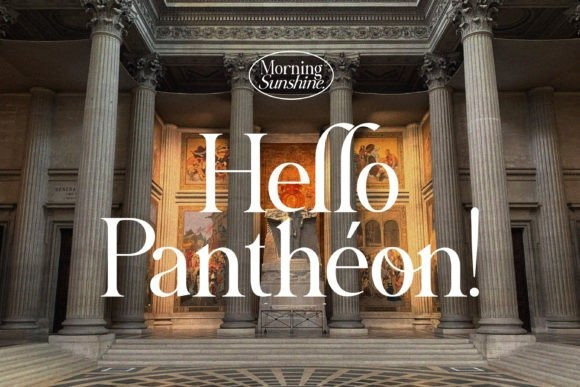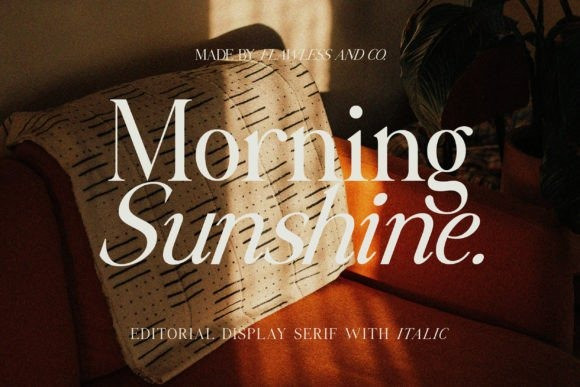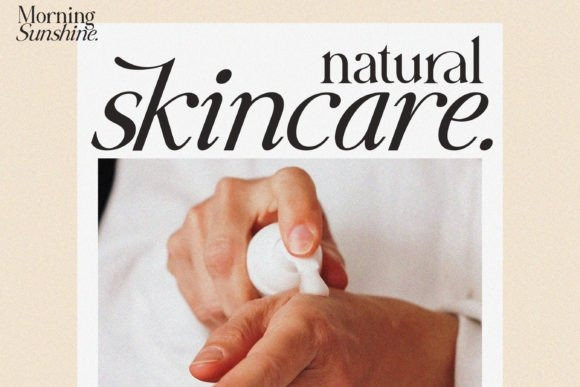
Morning Sunshine Font
Morning Sunshine Font is a chic and fashionable serif font. Add this gorgeous font to your projects and you will be amazed by the outcome generated!